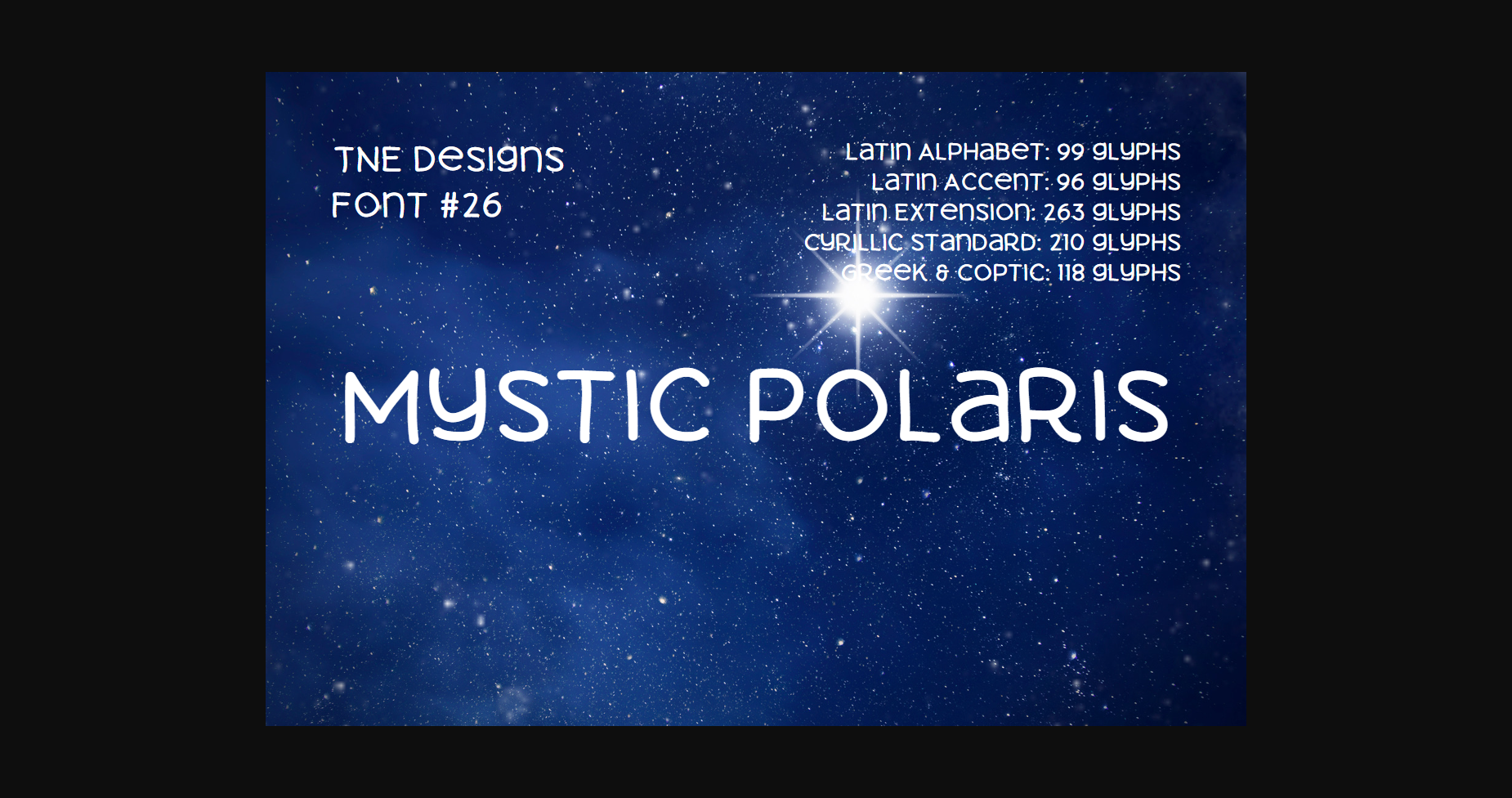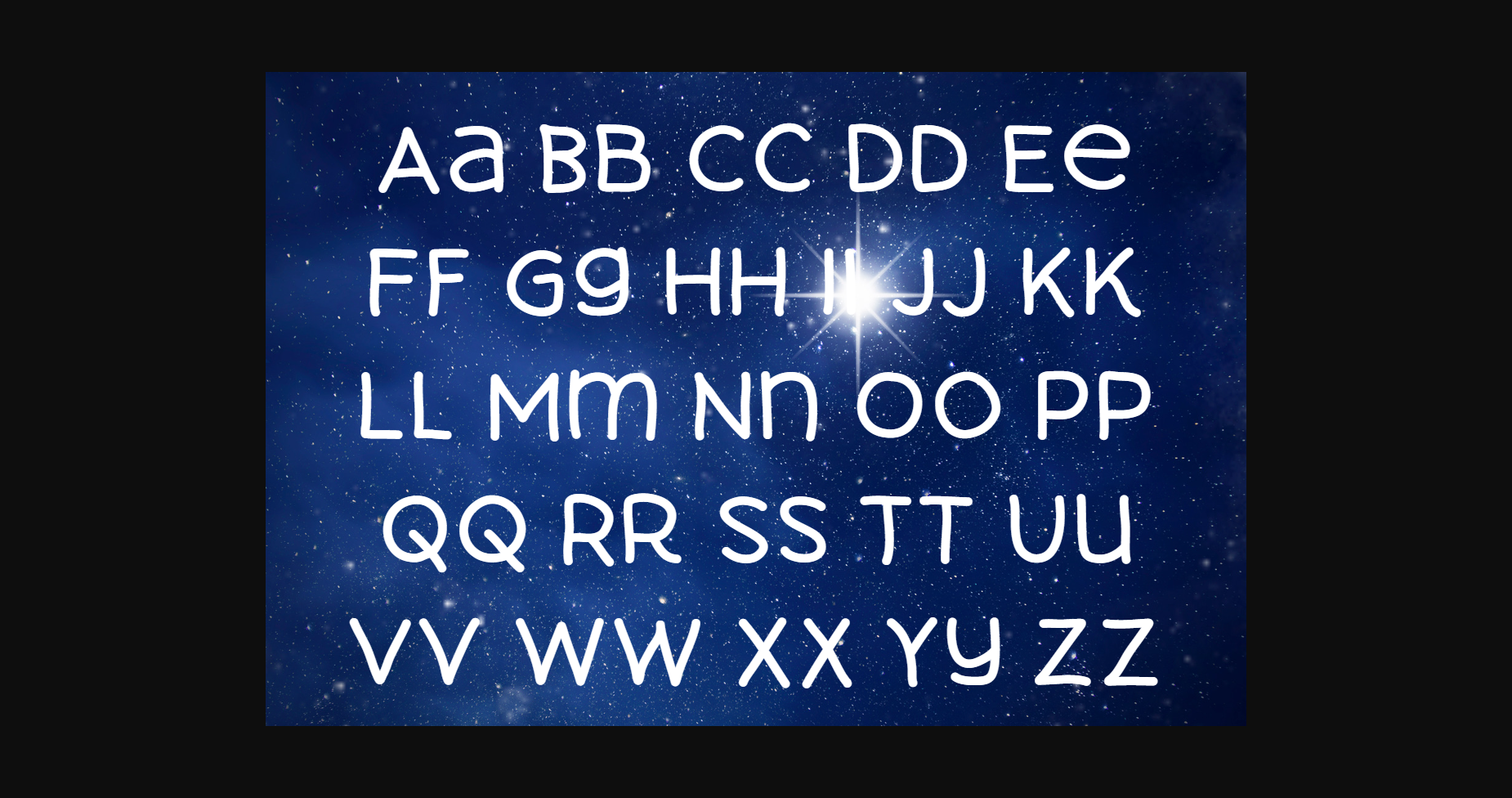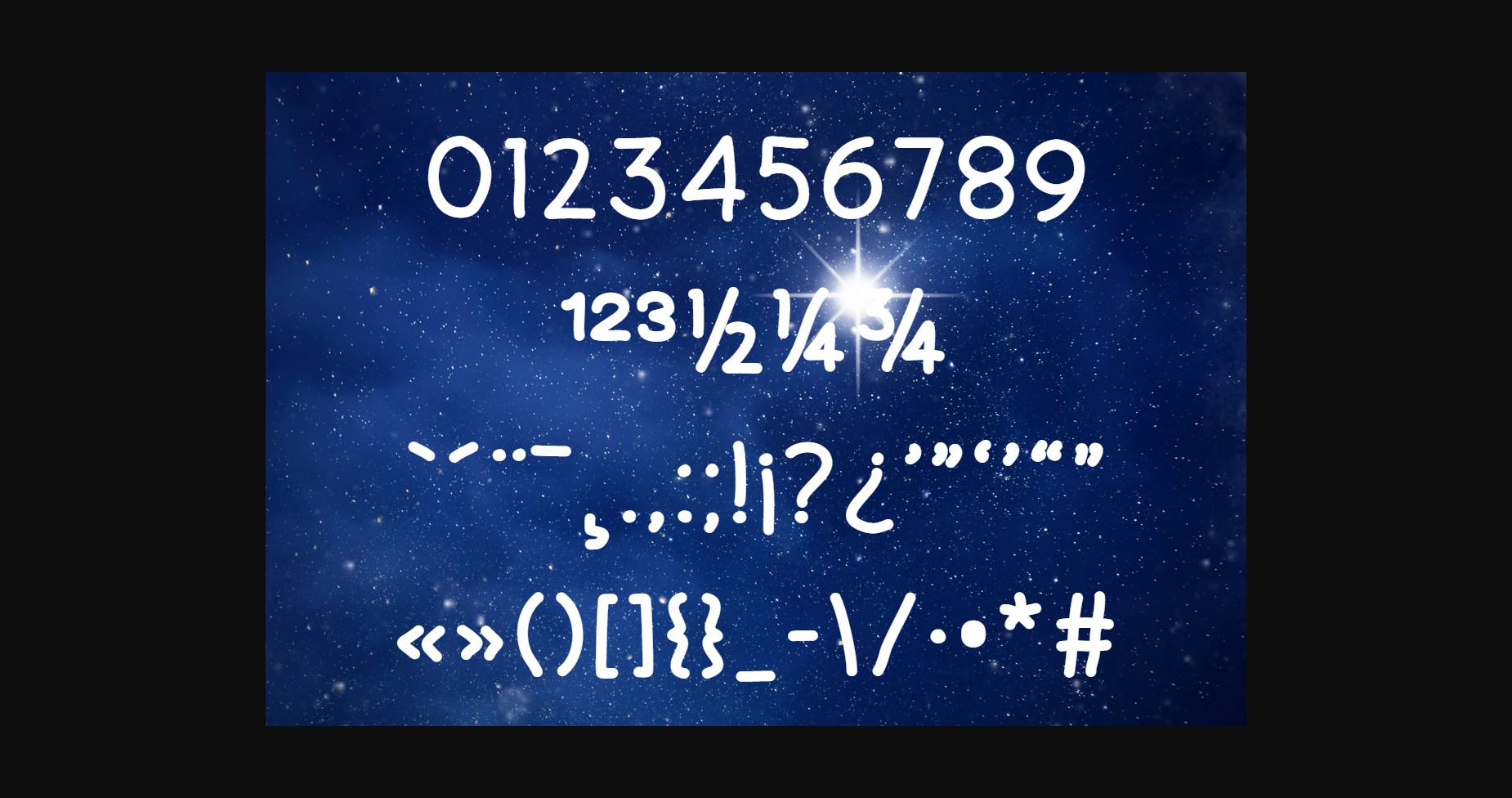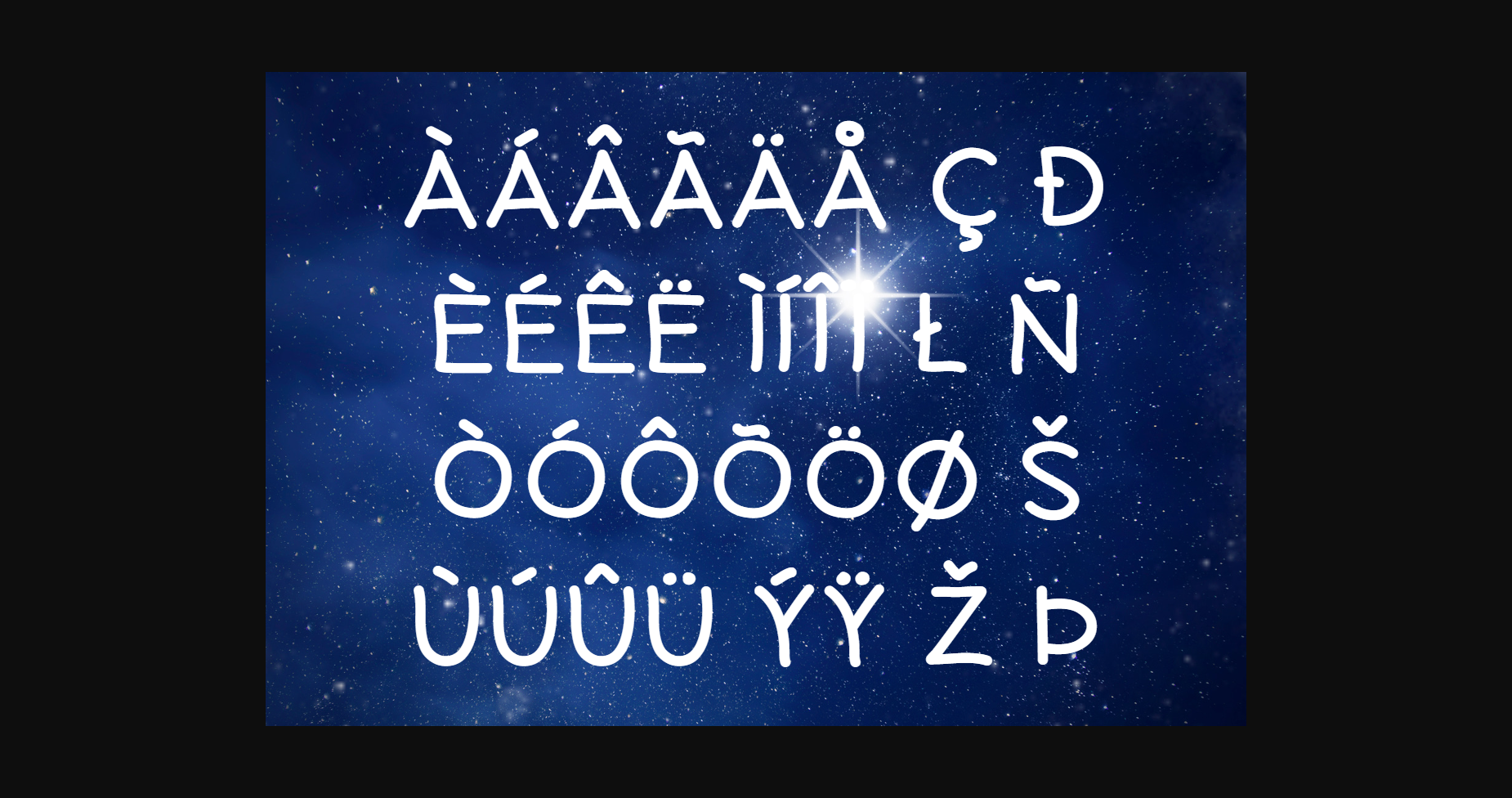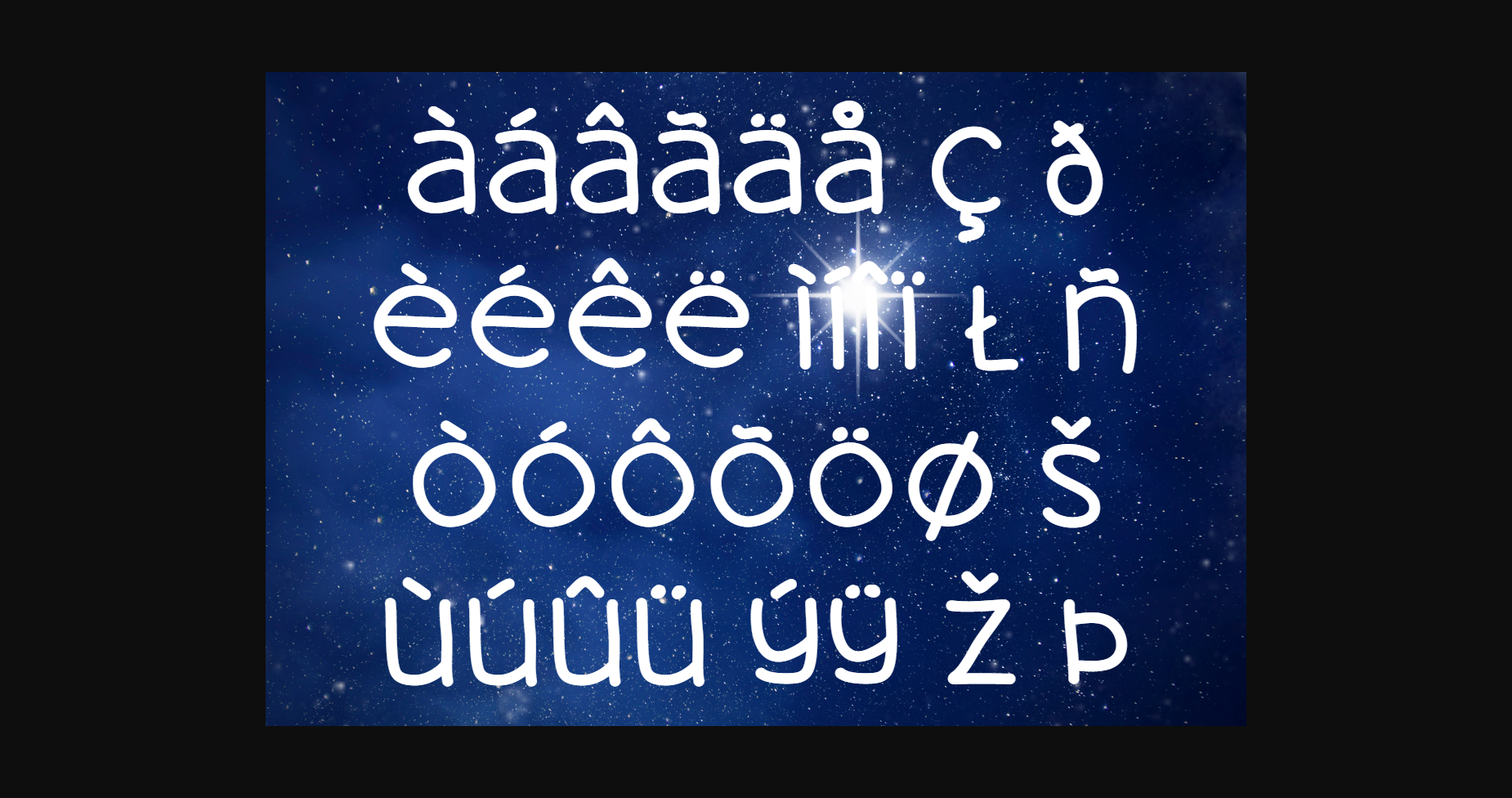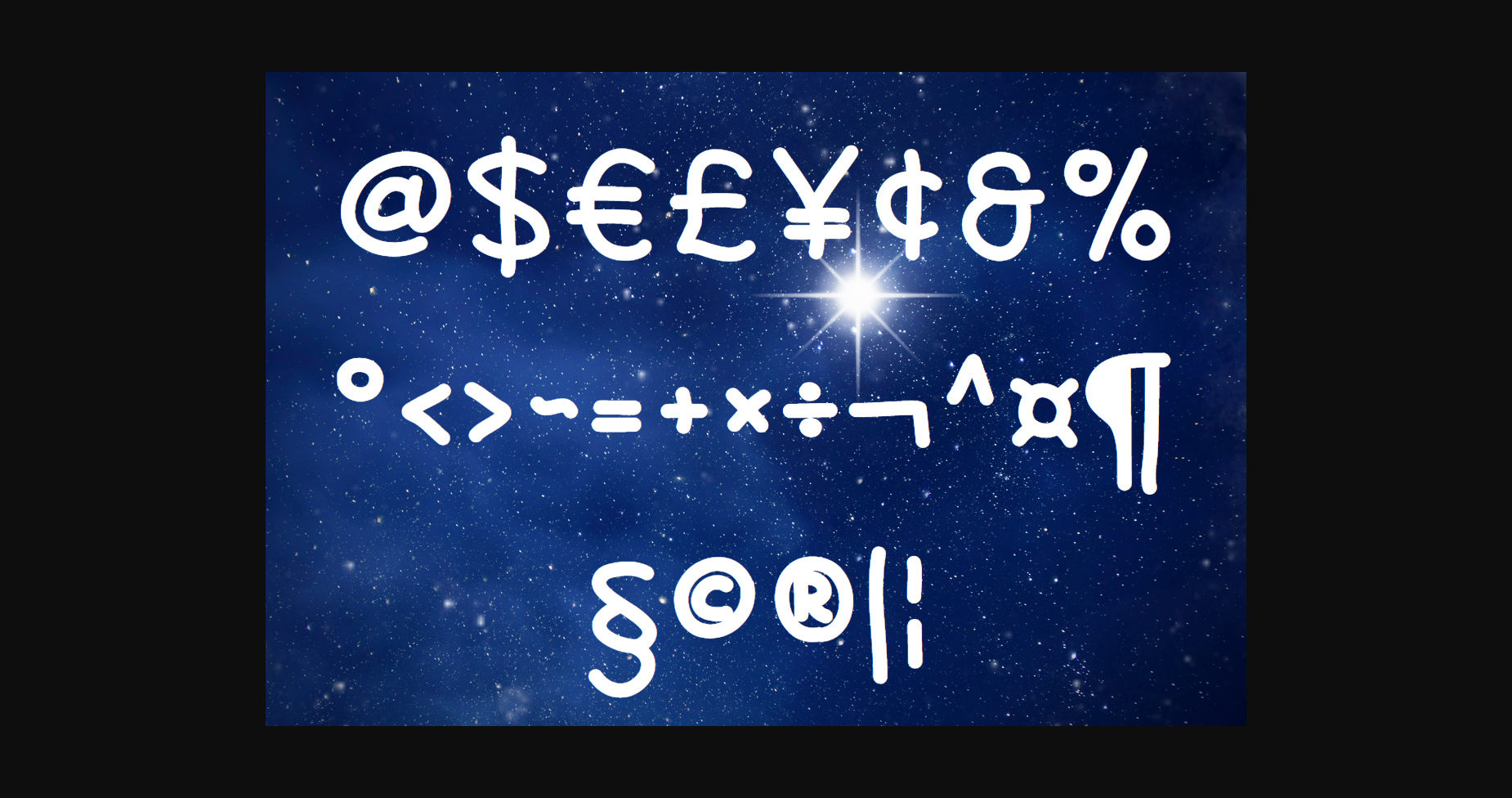
About Mystic Polaris Font
Mystic Polaris is an elegant and modern sans serif font. This minimalist and clean vibe can easily apply to your favorite designs such as book covers, magazines, social media posts, invitations, and so much more!